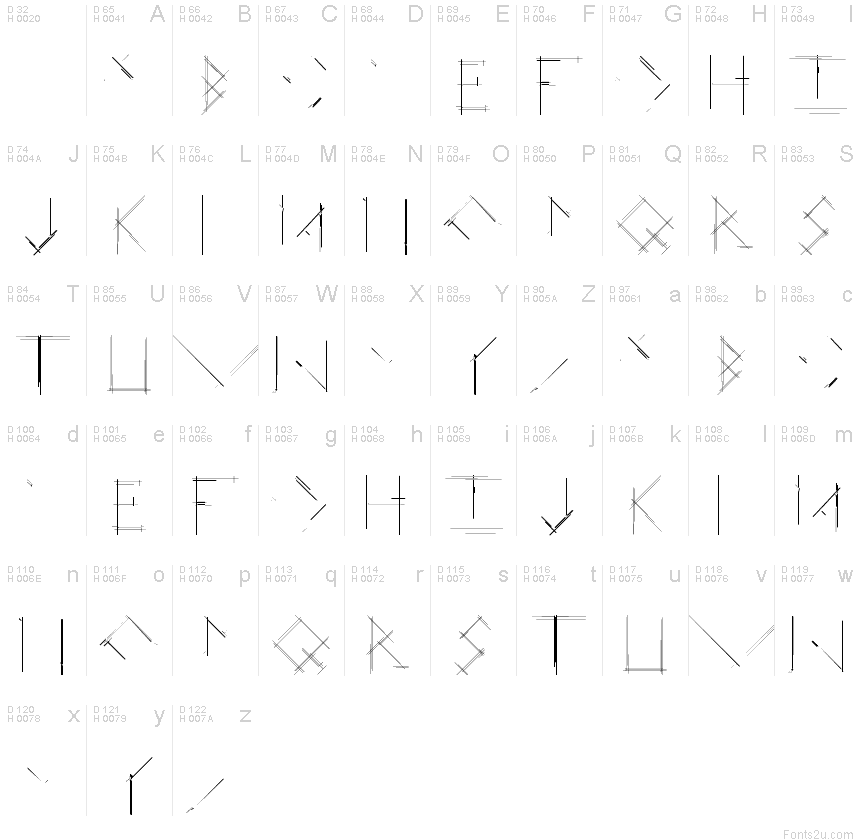
Linear Curve
Linear Curve by Matt Perkins is a free line-built display font from 1997 with sketchy, doubled strokes and a sparse geometric structure. The forms read like drafting marks rather than finished letters, and the slight wobble keeps the design loose.
Linear Curve fits poster titles, logo marks, album sleeves, tech labels, and game art because the line-built forms feel more like drafting marks than finished lettering. It also works as a sharp accent for editorial covers, motion graphics, and other short display uses that need an angular, hand-sketched edge.